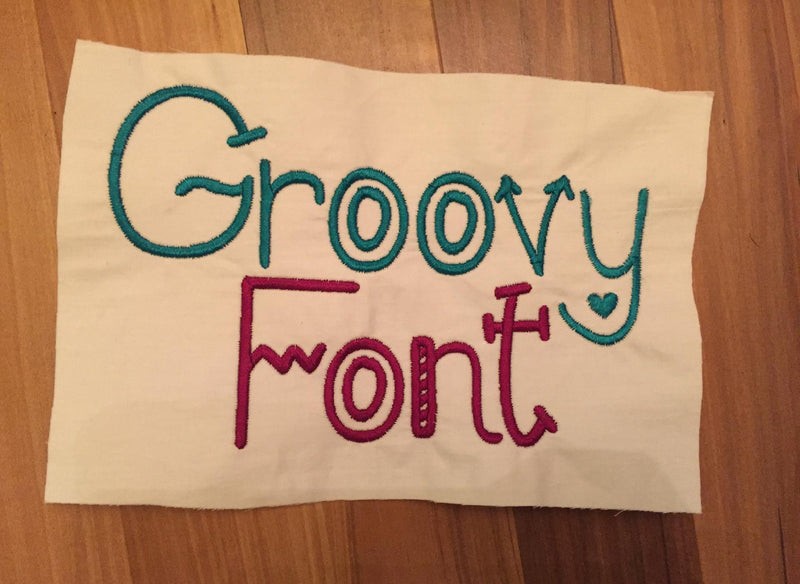
Groovy Embroidery Font
This a listing for my hand drawn Groovy Font Embroidery File!! It is available in 4 sizes, 1.5, 2, 2.5, 3 with Upper Case, Lower, Case & Numbers! This wonderful font is ready for Instant Download for embroidery machines with the following extensions: DST EXP EMD HUS JEF PES SEW VIP VP3 XXX